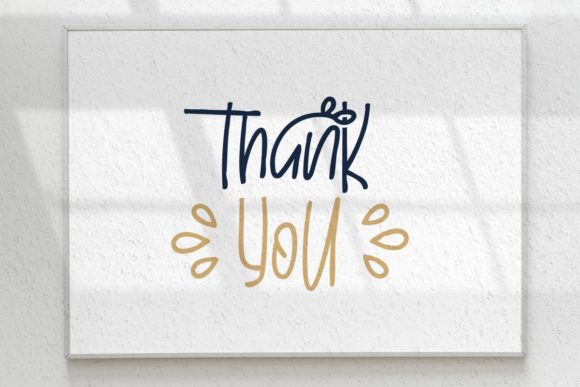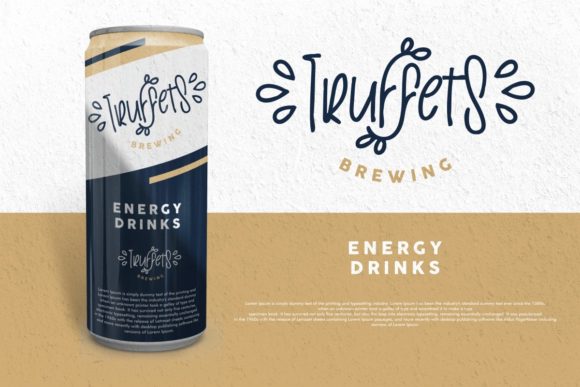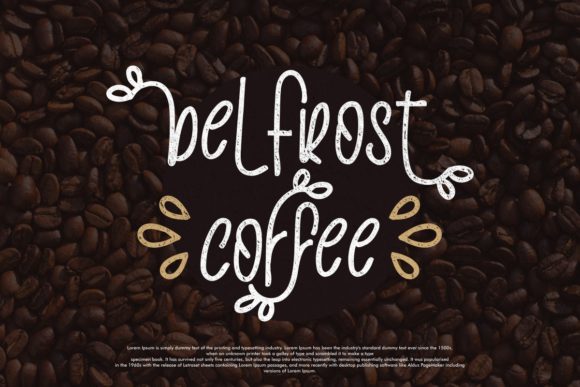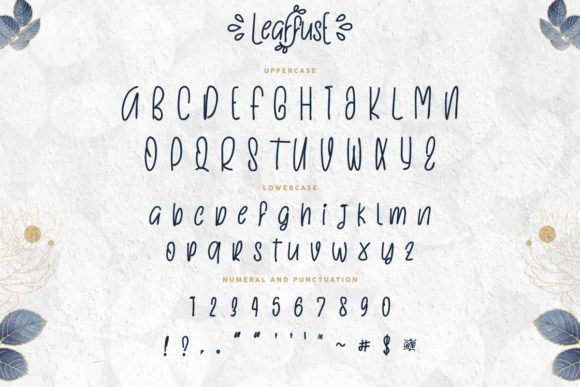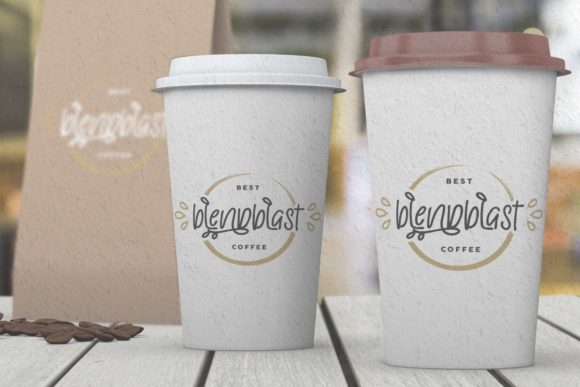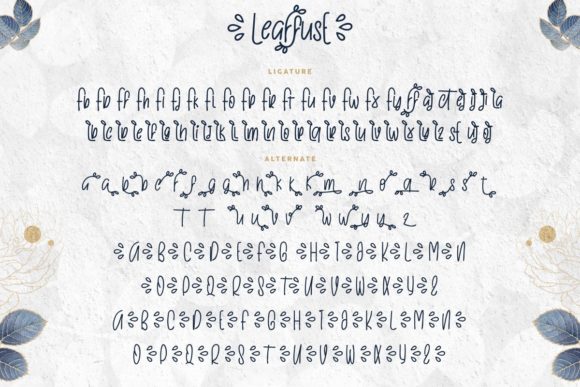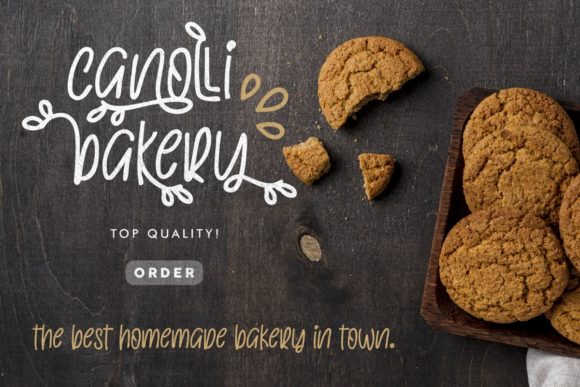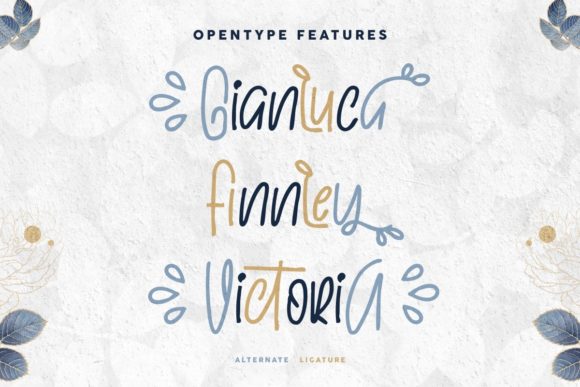
Leaffuse Font
About Leaffuse Font
Leaffuse is a delicate and chic handwritten font. It is PUA encoded which means you can access all glyphs and swashes with ease! Fall in love with its incredibly versatile style and use it to create spectacular designs!